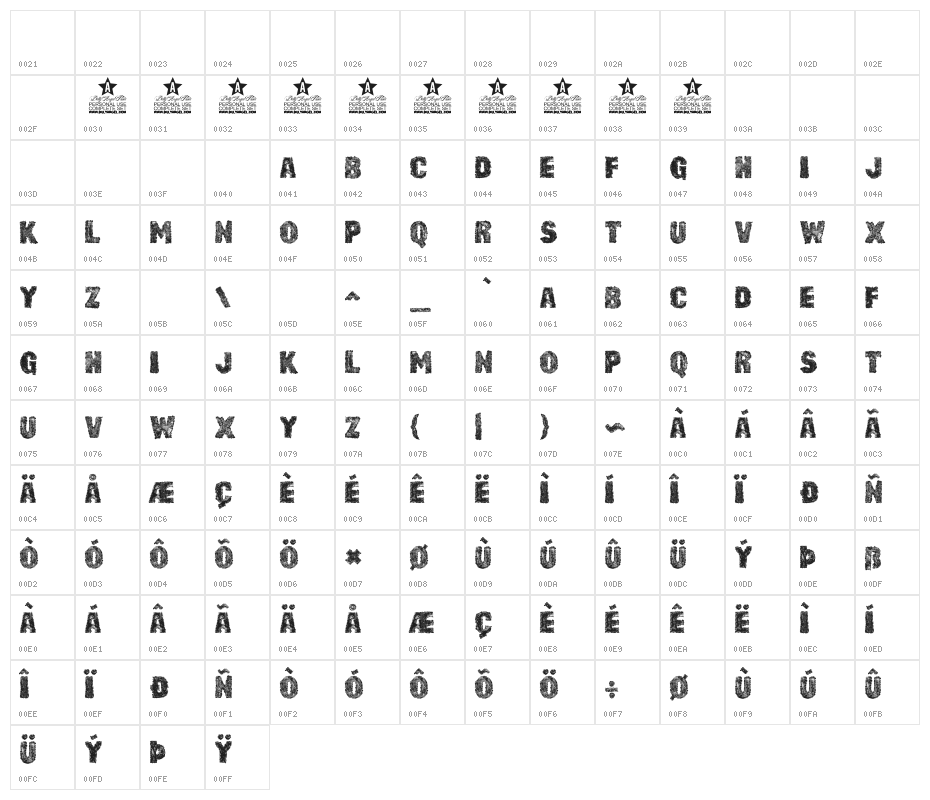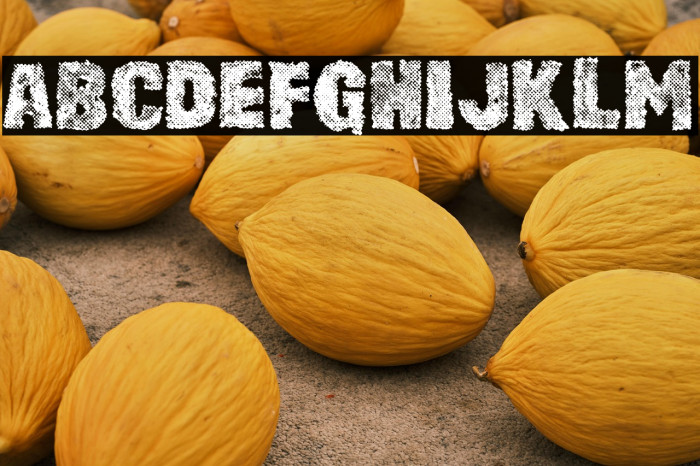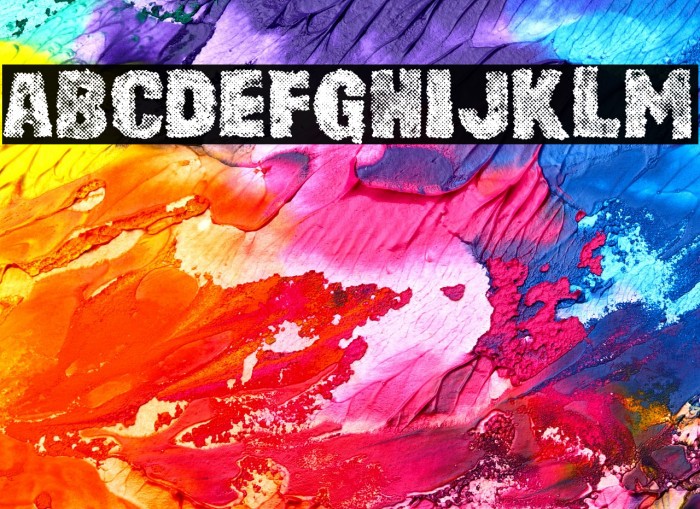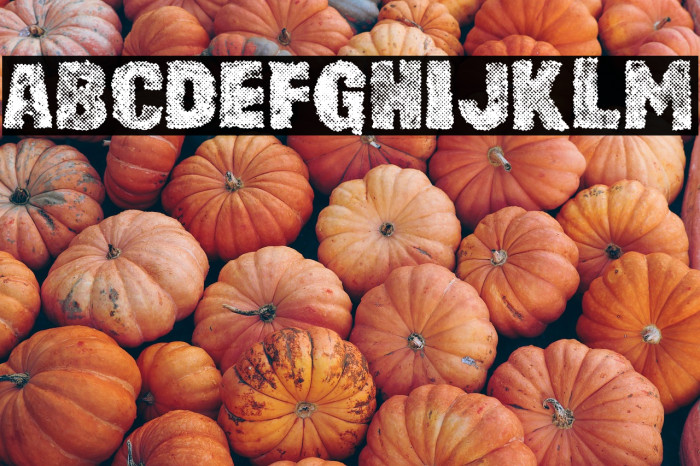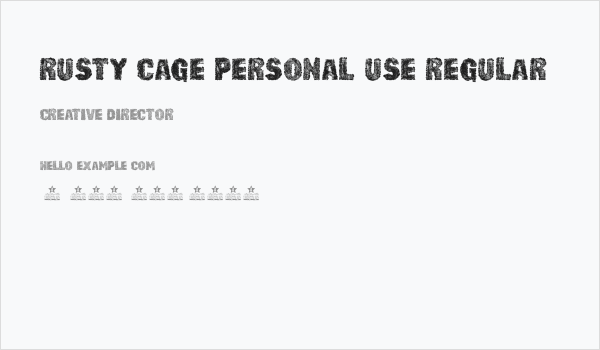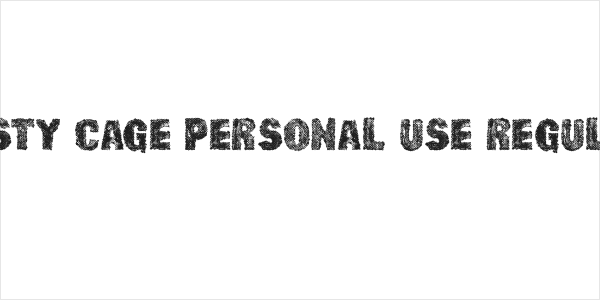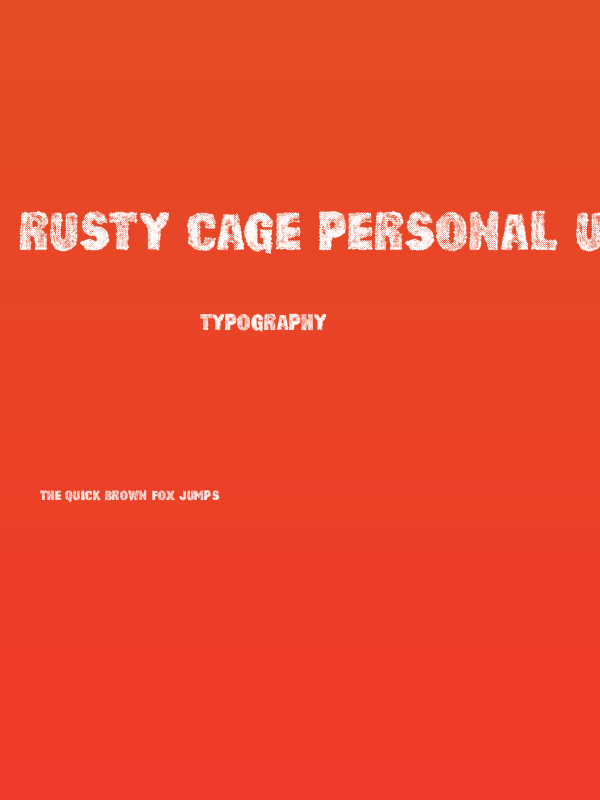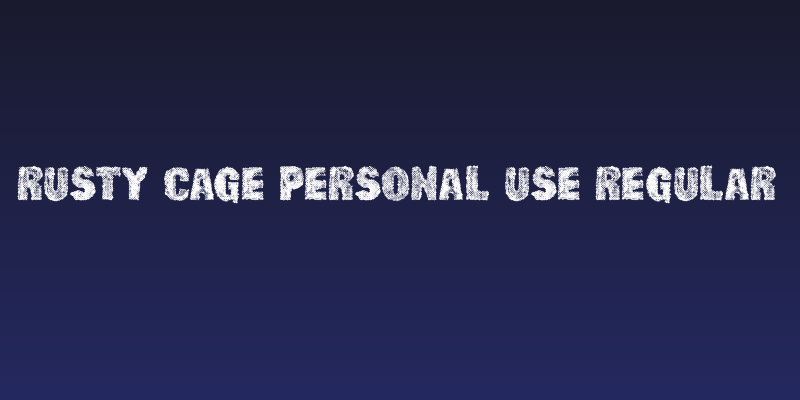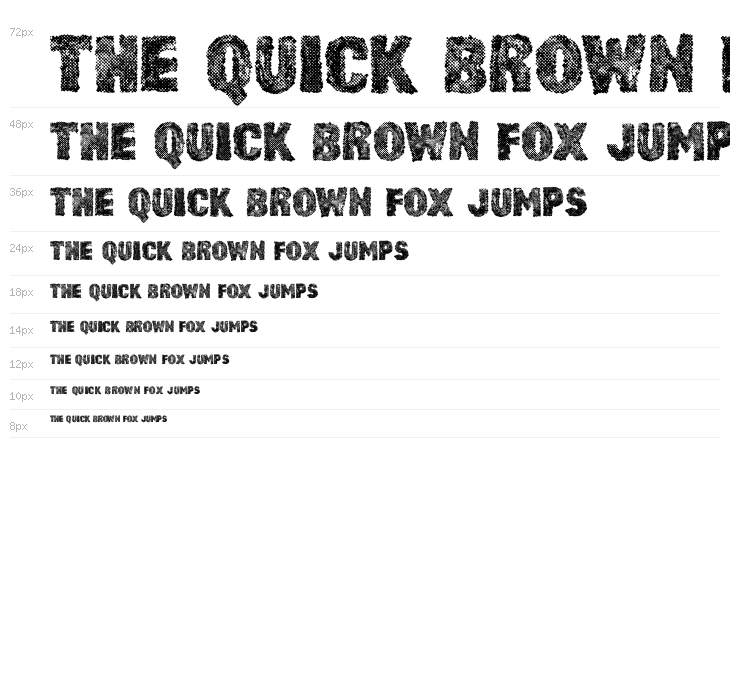
RUSTY CAGE PERSONAL USE Regular Font
RUSTY CAGE PERSONAL USE Regular Description
This font features a rugged, distressed style that gives it a gritty and textured appearance. The letters are bold and heavily stylized, with a rough, almost grunge-like texture that suggests a sense of wear and tear. The font's unique character is enhanced by its irregular edges and uneven surface, making it ideal for designs that aim to convey a sense of edginess or vintage appeal. The uppercase letters are prominent and eye-catching, while the overall design maintains a consistent level of detail across all characters. This font is particularly suitable for projects that require a bold statement or a touch of rebellious flair.